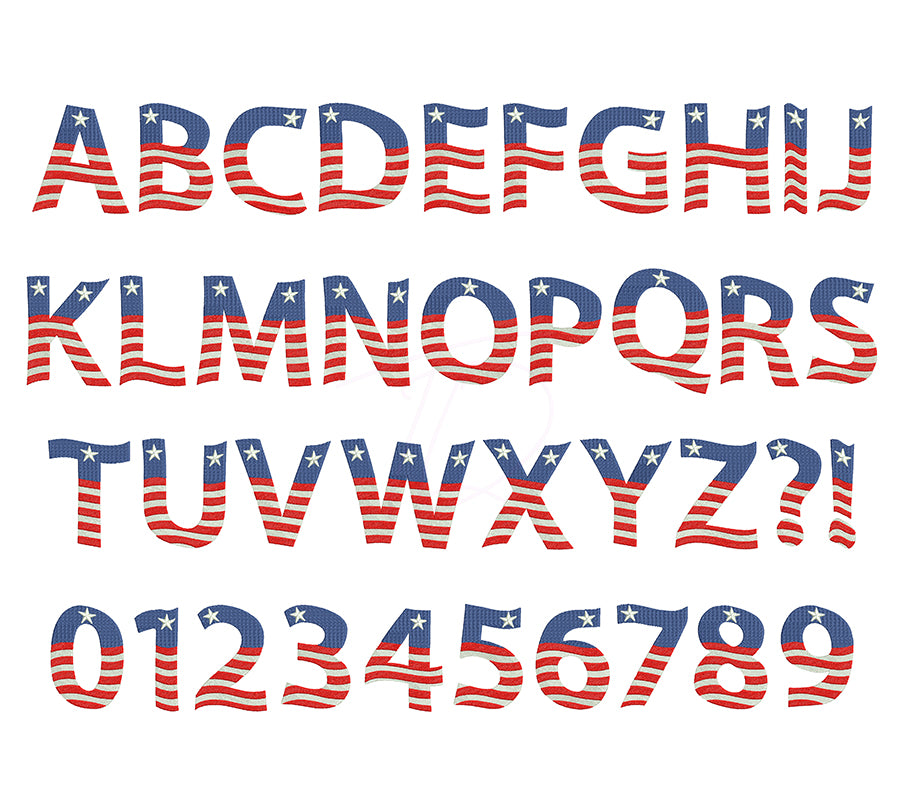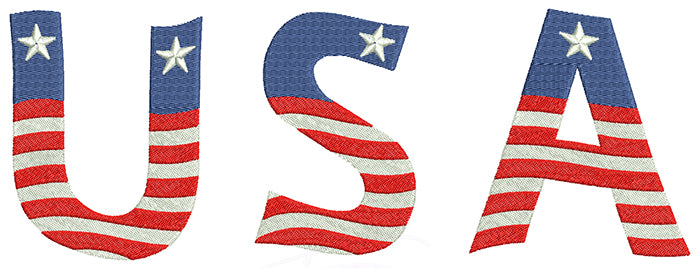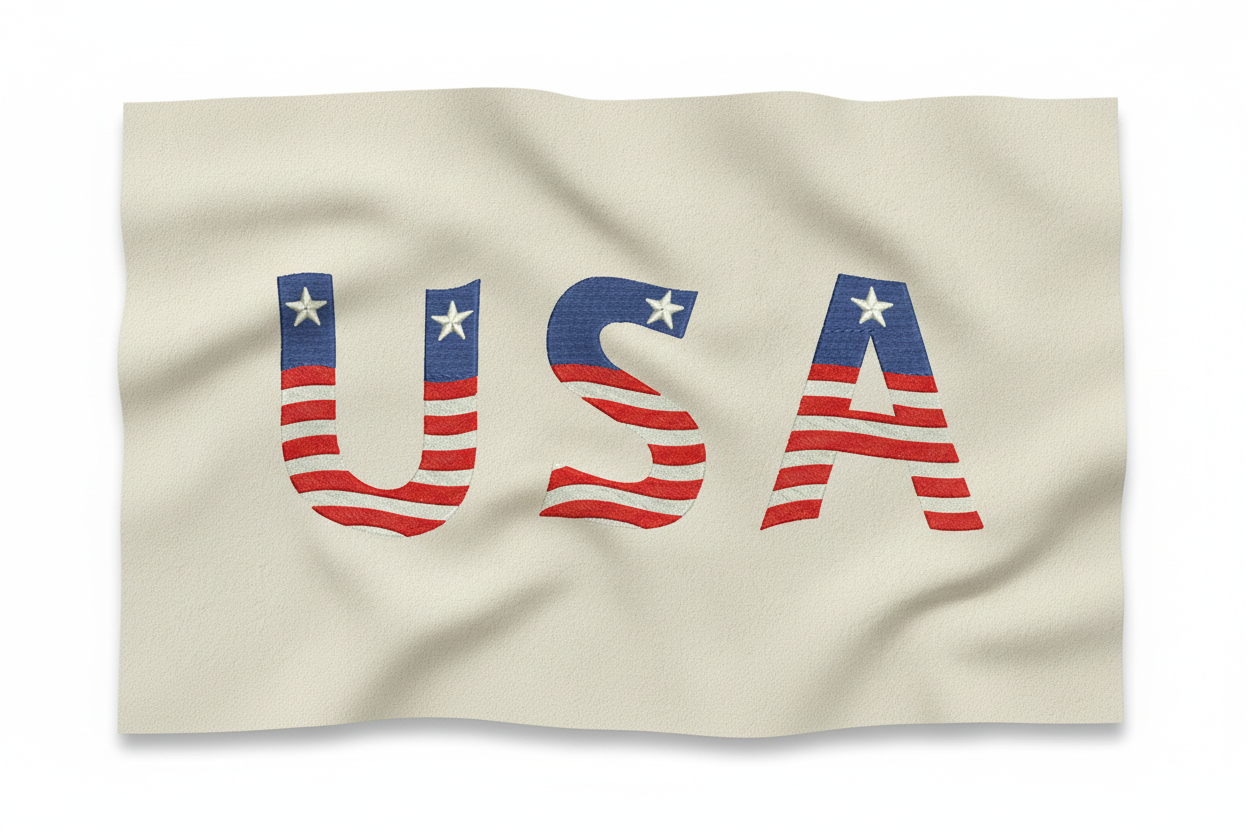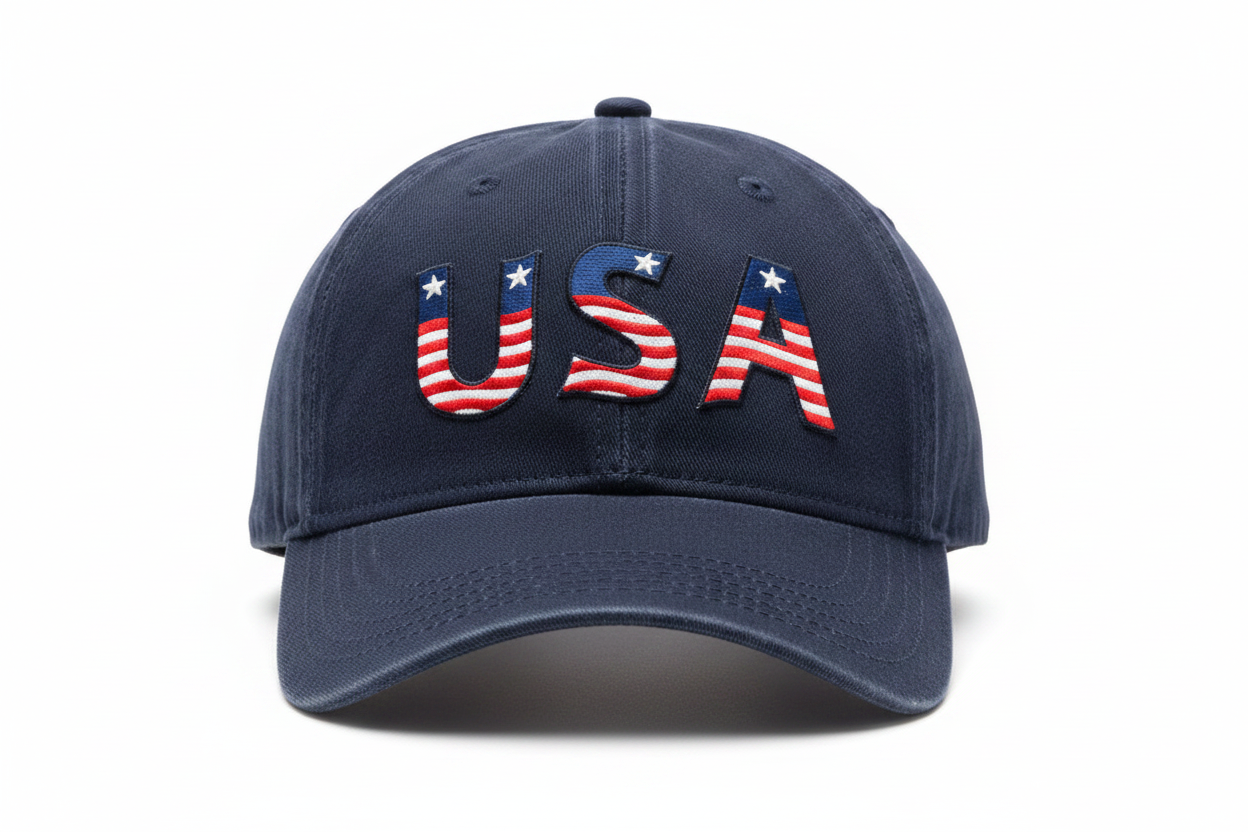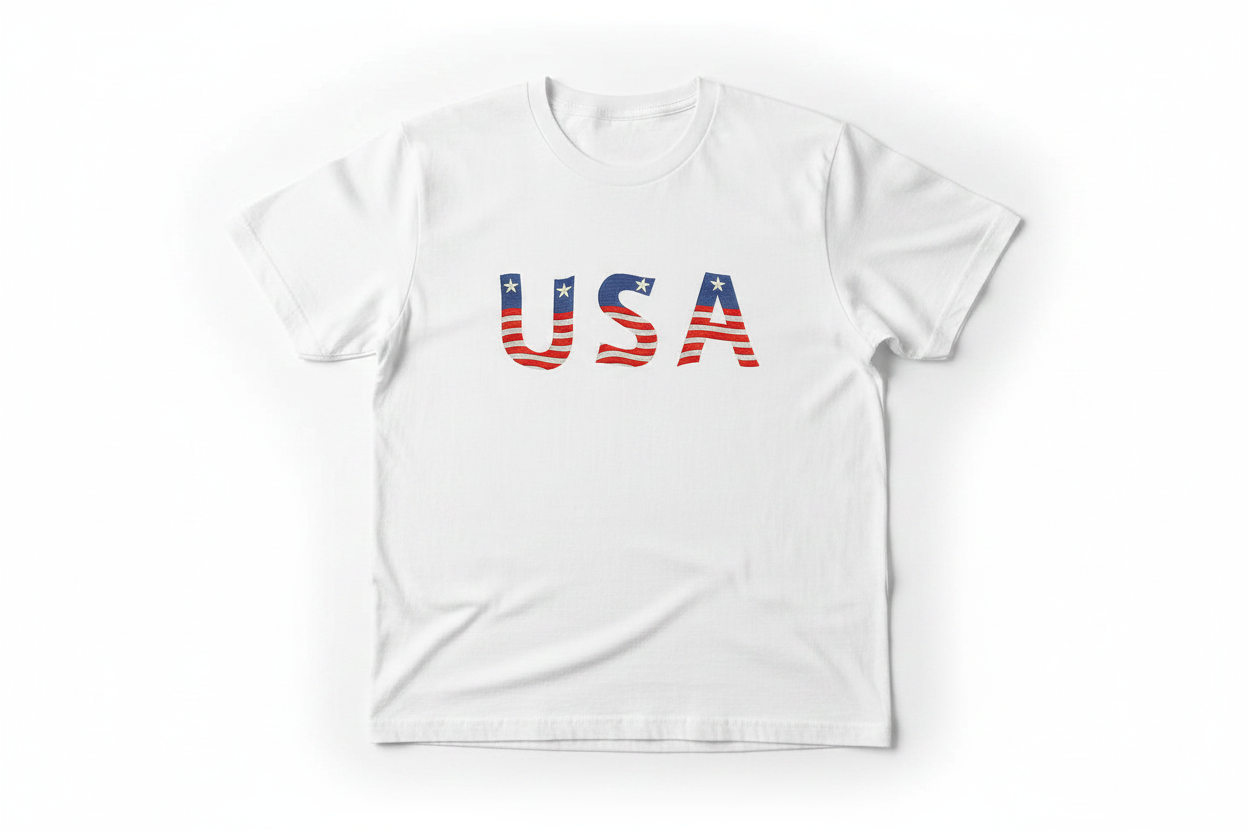
USA Flag Embroidery Digital Font. Machine embroidery alphabet in USA flag. BX included.
Bring patriotic pride to every stitch with the USA Flag Embroidery Digital Font — a stunning machine embroidery font featuring the iconic American flag design with red, white, and blue stripes and stars.
- Great for hats, t-shirts, tote bags, and apparel
- Patriotic design with flag-inspired fill